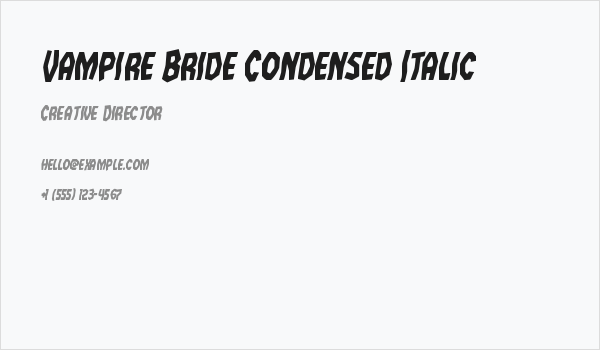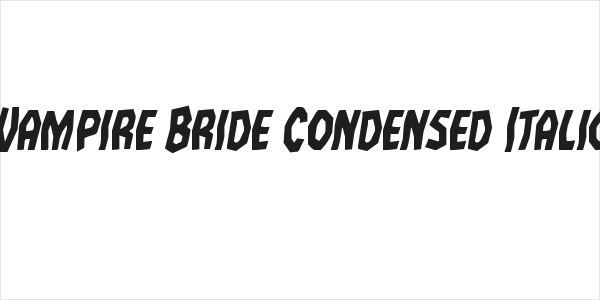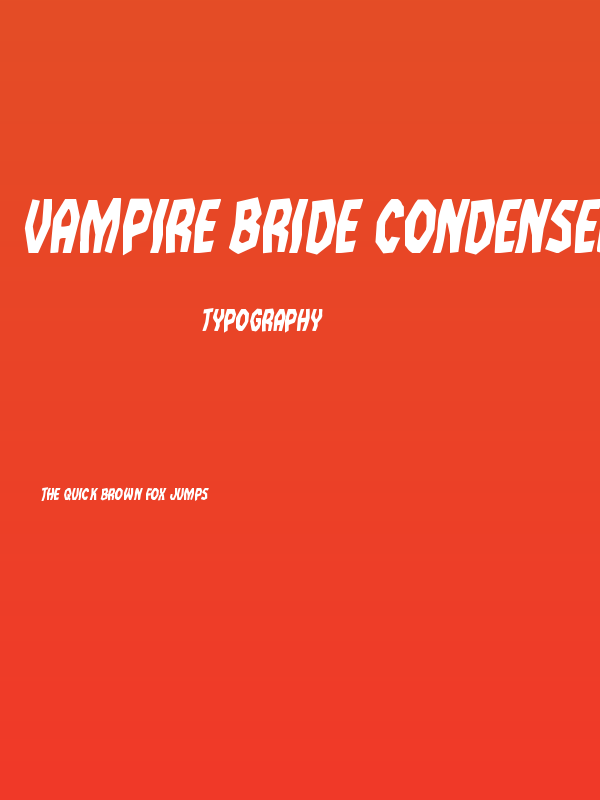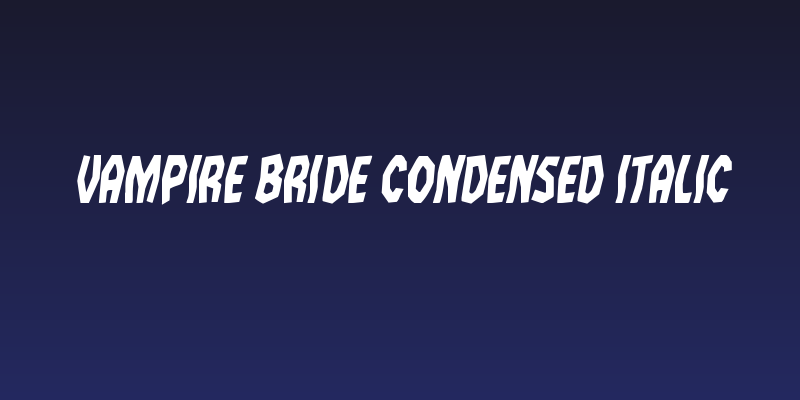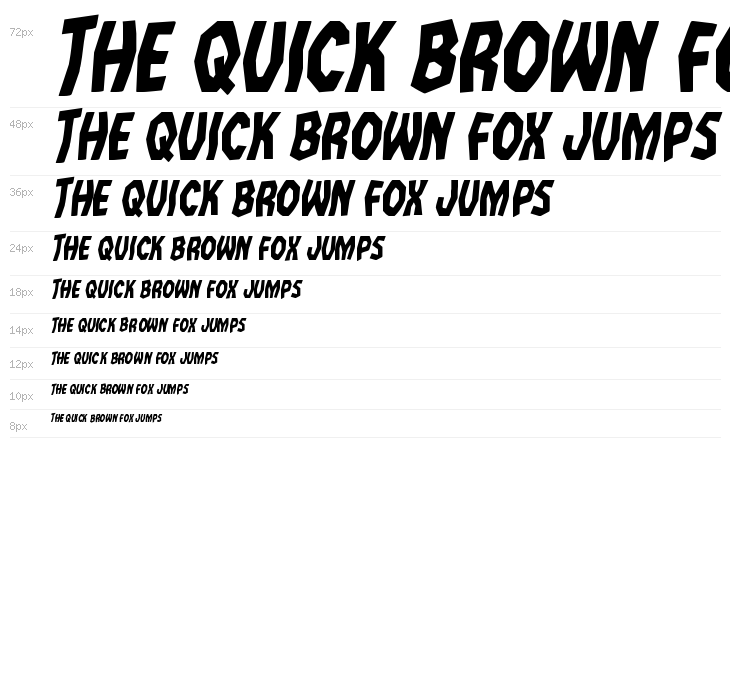
Vampire Bride Condensed Italic Font
Vampire Bride Condensed Italic Description
This font features a bold and condensed style with an italic slant, giving it a dynamic and energetic appearance. The characters are sharply angled, creating a sense of movement and urgency. The uppercase and lowercase letters maintain a consistent design, with exaggerated serifs and a slightly aggressive look. The numbers and special characters follow the same stylistic cues, ensuring uniformity across all glyphs. This font's unique style makes it suitable for projects that require a bold statement or a touch of drama.
Proposed ProjectsIdeal for horror-themed posters, Halloween invitations, edgy branding, or video game titles.